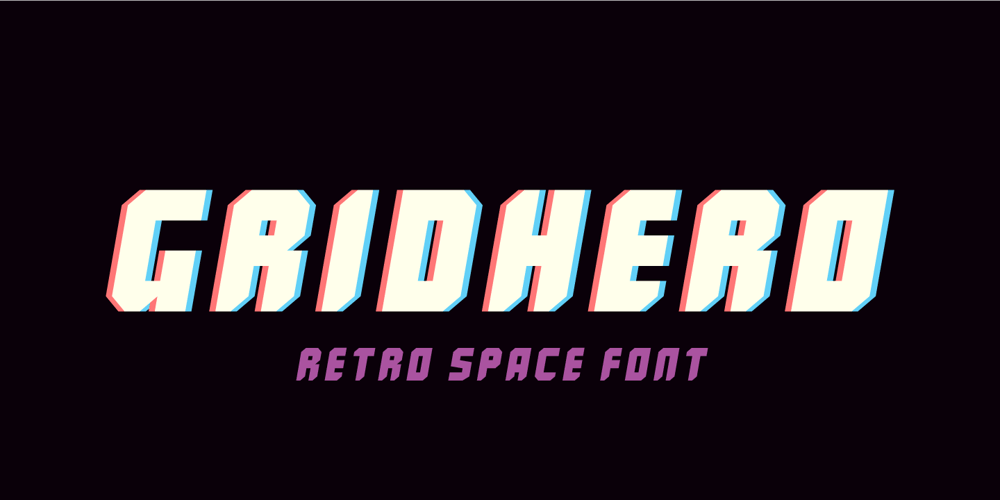
Grid Hero
Grid Hero font
Grid Hero Font Family was designed by Jakob Fischer and published by PizzaDude.dk. Grid Hero contains 4 styles and family package options. 100.000 years ago years ago, a group of mad scientists from the far away planet ZyrXX, encountered the earth and just waited to conquer the planet. Their masterplan was to use electronic brain waves to manipulate our minds.Sounds cheesy and comic, right? Well, that is the true story about this font. The font was built using a grid (hence the name!) and all I had in mind, was a mixture of old sci-fi movies and computer graphics from the 80ies. I did my best to recall and re-create this – I will let you be the judge to decide whether I succeeded! 🙂